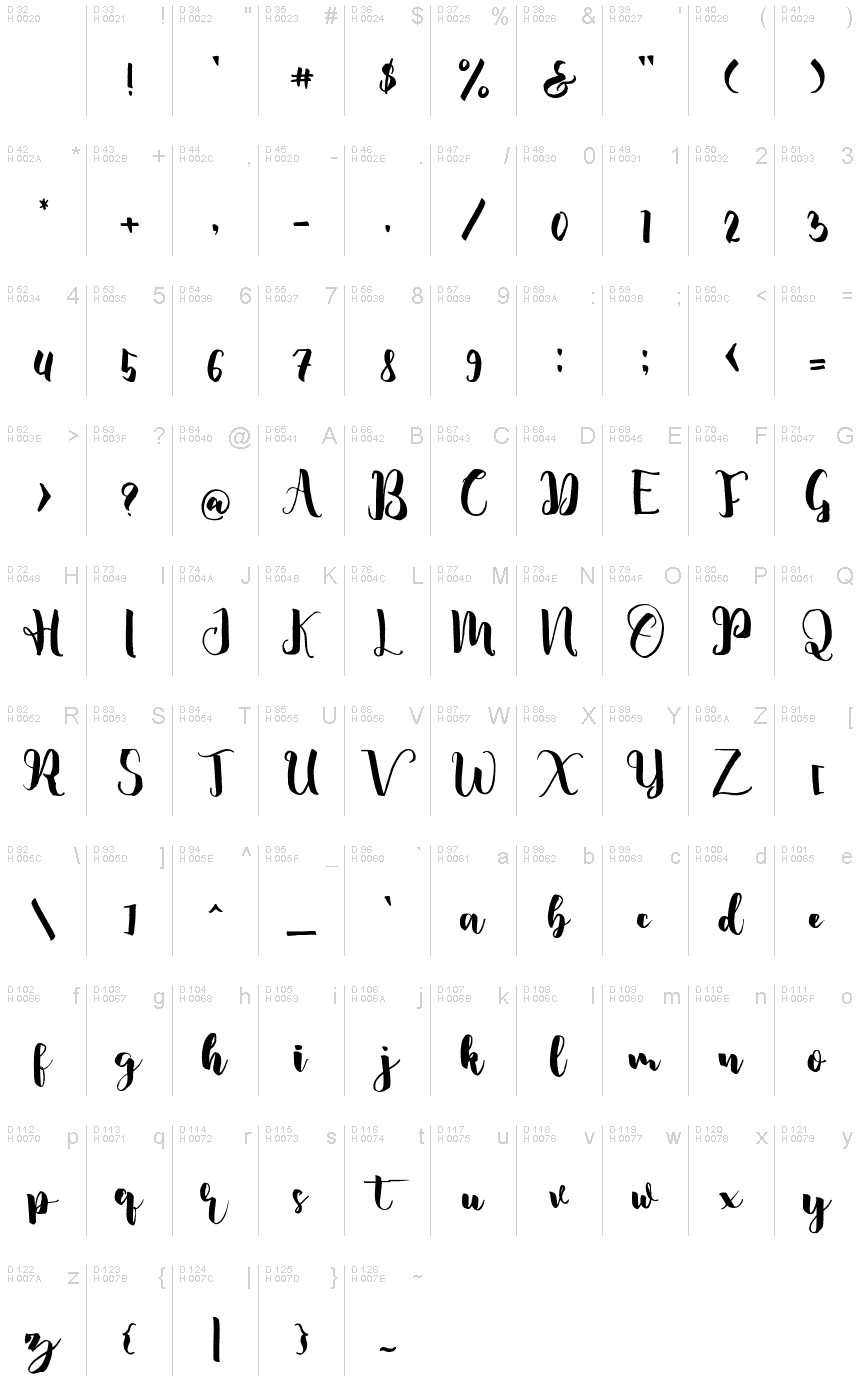
Skincare
Skincare, the enchanting calligraphy font by Infontree, is a captivating addition to any design project. With its flowing curves and elegant strokes, Skincare exudes sophistication and beauty that will elevate your branding, invitations, and packaging designs. This versatile font is perfect for creating romantic wedding stationery or luxurious skincare product labels. Its charming flourishes lend themselves to crafting social media graphics or inspirational quotes that stand out from the crowd. Let Skincare be your go-to choice for projects that demand a touch of grace and charm.